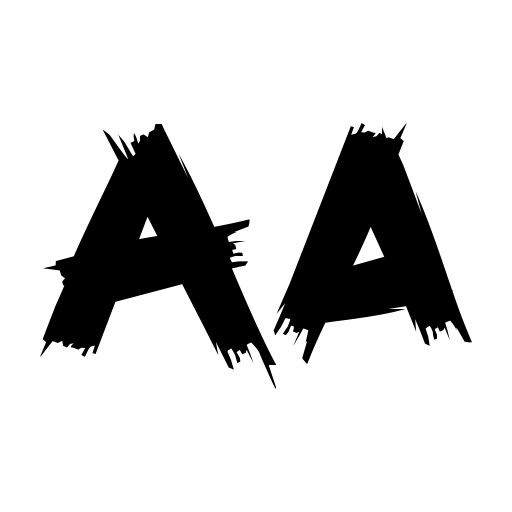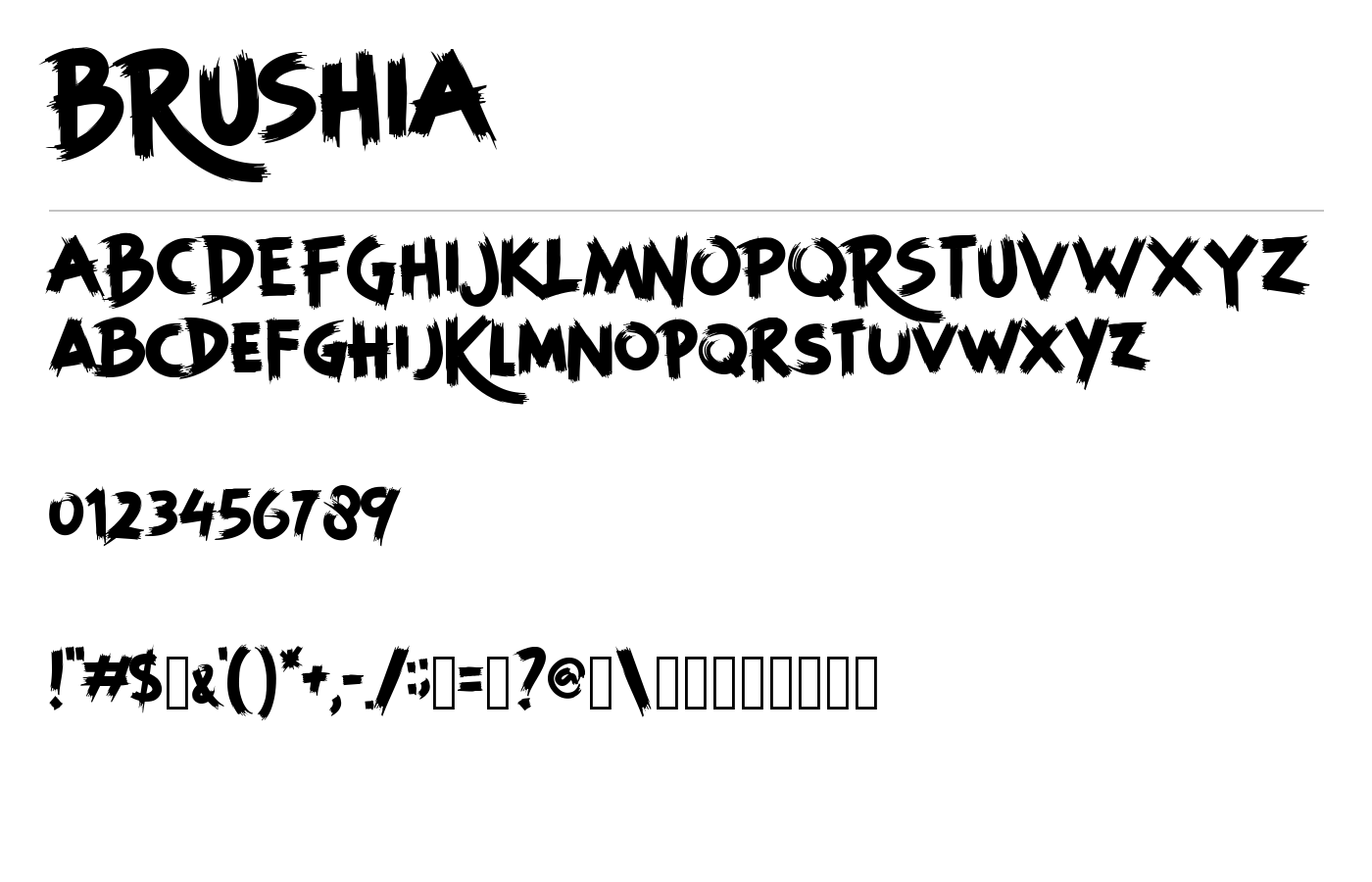
BRUSHIA is a bold, expressive brush script font that mimics the natural texture and rough edges of hand-painted letters, giving it a dynamic and energetic appearance. Its uppercase and lowercase letters feature dramatic, slightly irregular strokes with sharp, textured endings, making it perfect for creative and casual designs. This font works well for eye-catching headlines, posters, branding, and projects that want to convey a playful, artistic, or handcrafted vibe.
BRUSHIA Font
About BRUSHIA Font
| Font family | BRUSHIA Font |